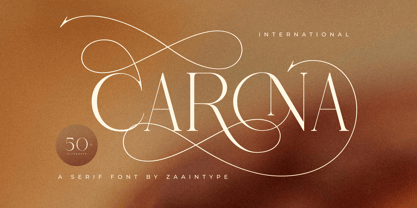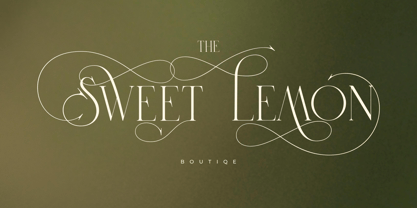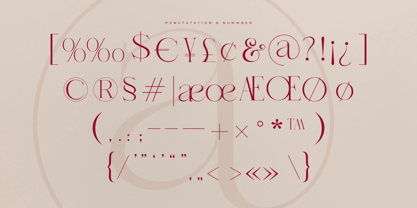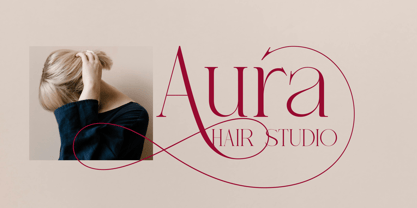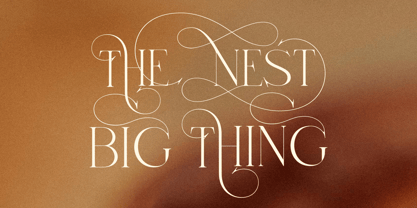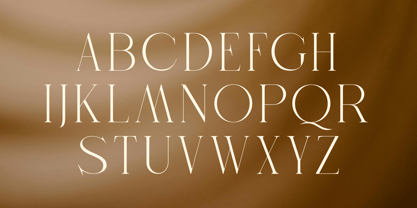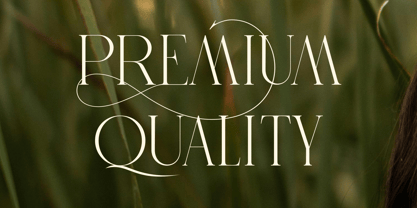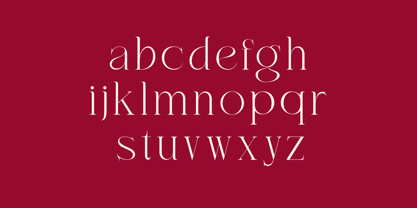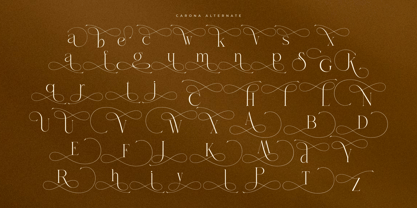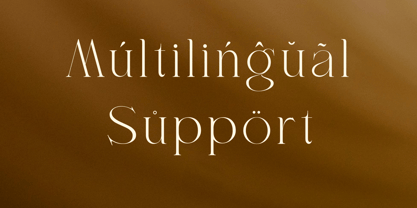
Carona
by Zaain Type
The Carona Font Family was designed by Ju Naen and published by Zaain Type. Carona contains 1 styles.
Carona is an elegant serif font that blends classic sophistication with a modern touch. Its letterforms feature a refined contrast between thick and thin strokes, bringing a sense of luxury while remaining highly legible. Perfect for editorials, branding, invitations, and packaging designs that demand a classy and distinguished look. With its strong yet graceful character, Carona delivers a visual identity that is both striking and timeless